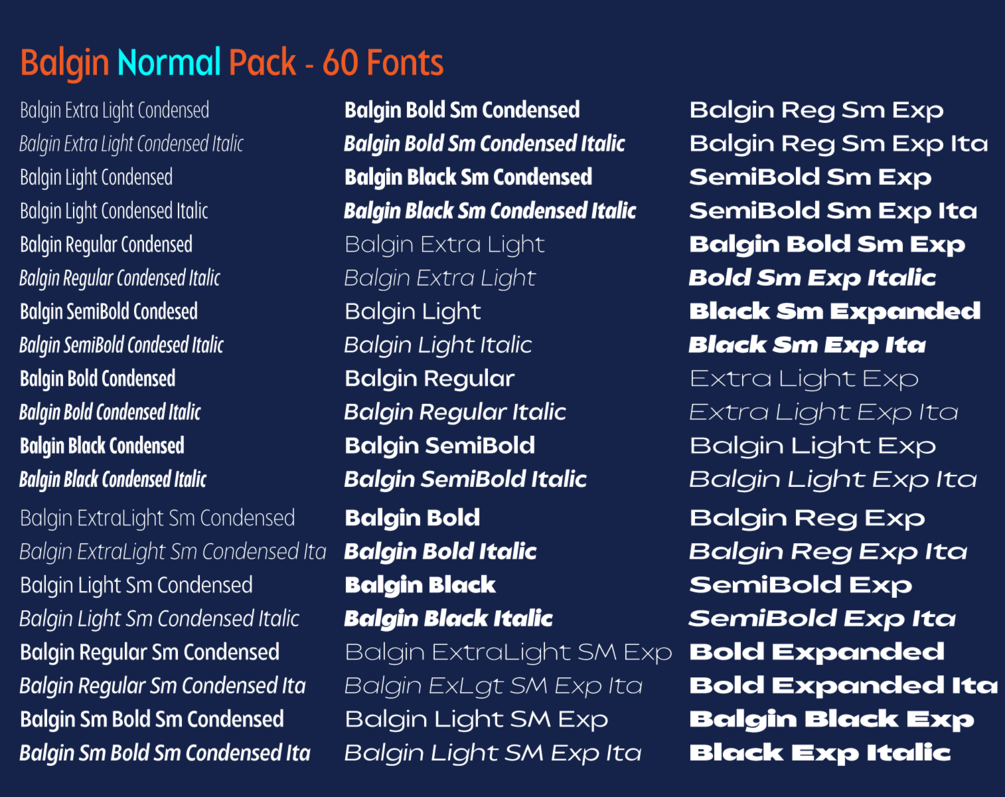
Balgin
Balgin brings back the nostalgic era of the 90's. It's a very generous typeface with a total of 82 fonts available in 4 Packs (Complete - Display - Normal & Text) with 6 different weights (The Normal is available with 5 widths). This typeface is amazing for display projects.